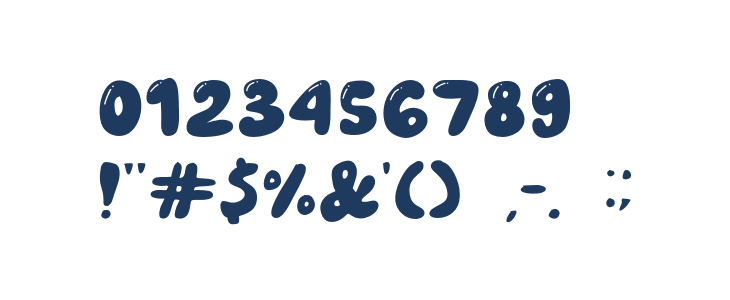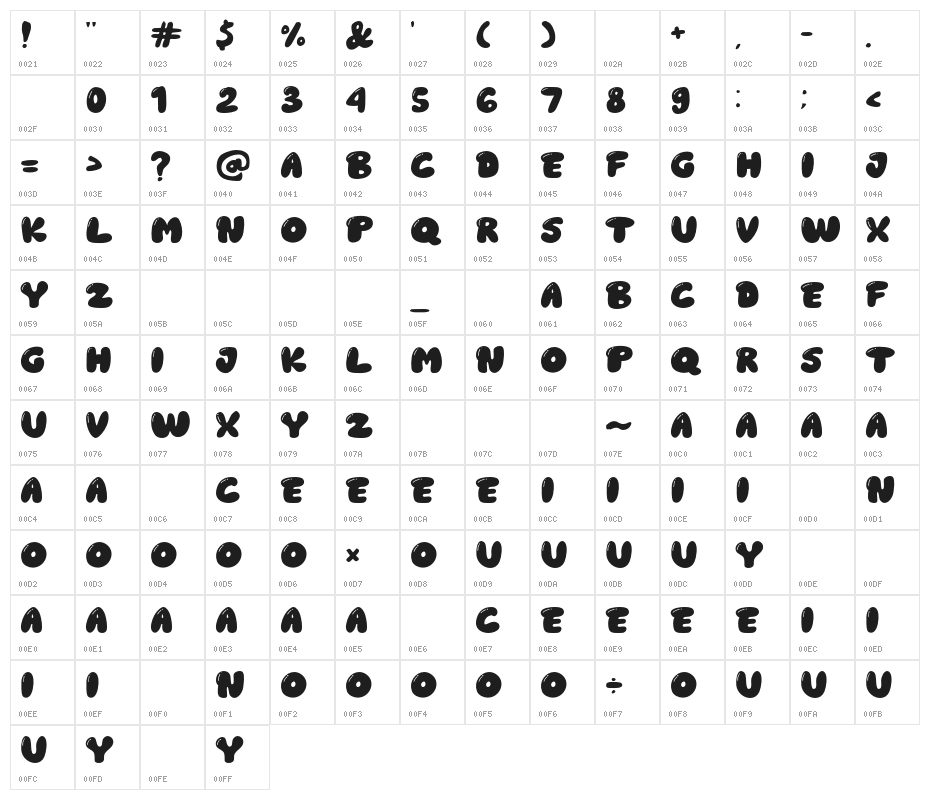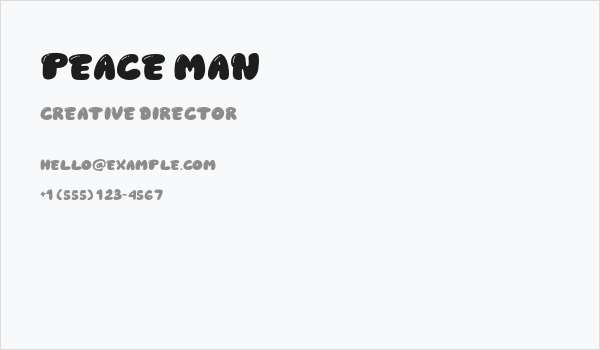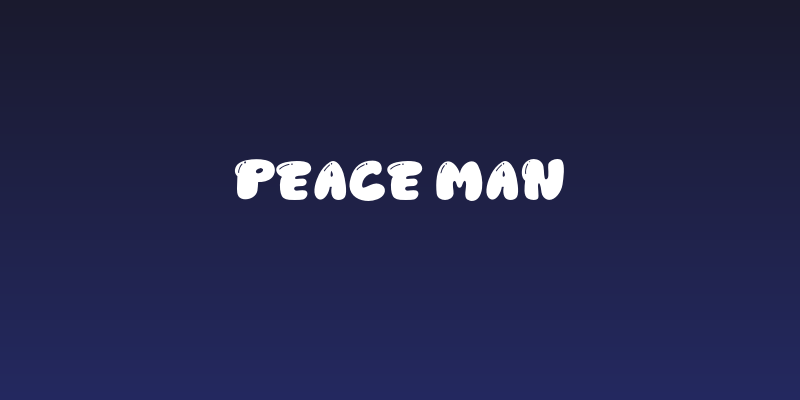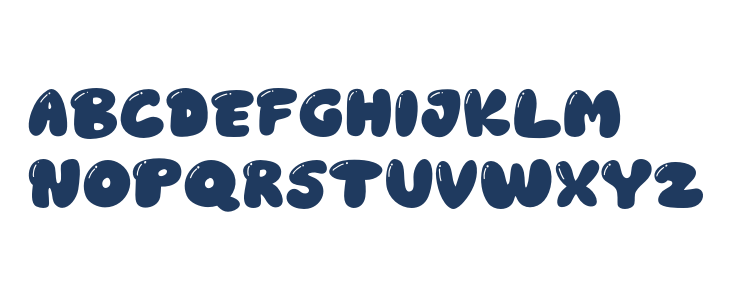
Peace Man Font
Peace Man Description
A playful, rounded display typeface with bold, bubble-like letterforms and consistent stroke thickness, giving it a friendly and informal appearance. The characters are wide and have a soft, almost cartoonish feel, with generous spacing and a uniform height across uppercase and lowercase letters.
| Width | Expanded |
| Overall Style | Playful, Decorative, Modern |
| Use Case | Headlines, Posters, Logos, Children's materials |
| Proposed Projects | Children's books, posters, party invitations, playful branding, comic titles. |